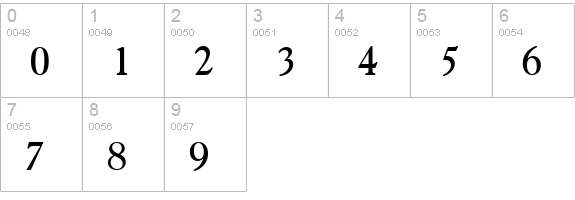
GascogneSerial-Regular is the standard, neutral variant in the GascogneSerial typeface family \xE2\x80\x94 well suited to general body text, paragraphs, and standard typographic work.
GascogneSerial-Regular font is a versatile and elegant typeface that exudes sophistication and modernity. Its clean lines and balanced proportions make it perfect for a wide range of design projects, from branding to editorial design. The font's timeless appeal and readability make it a popular choice among designers and creatives looking to make a statement. What sets GascogneSerial-Regular font apart is that it is available for free download at FontsMarket.com. This means that you can access this high-quality font without any cost, making it a valuable addition to your font collection. Whether you are a seasoned designer or just starting out, GascogneSerial-Regular font offers a professional and polished look for your projects. With its classic yet contemporary design, GascogneSerial-Regular font is sure to elevate your designs and leave a lasting impression on your audience. Download this versatile font today and unleash your creativity with GascogneSerial-Regular font, available for free at FontsMarket.com.